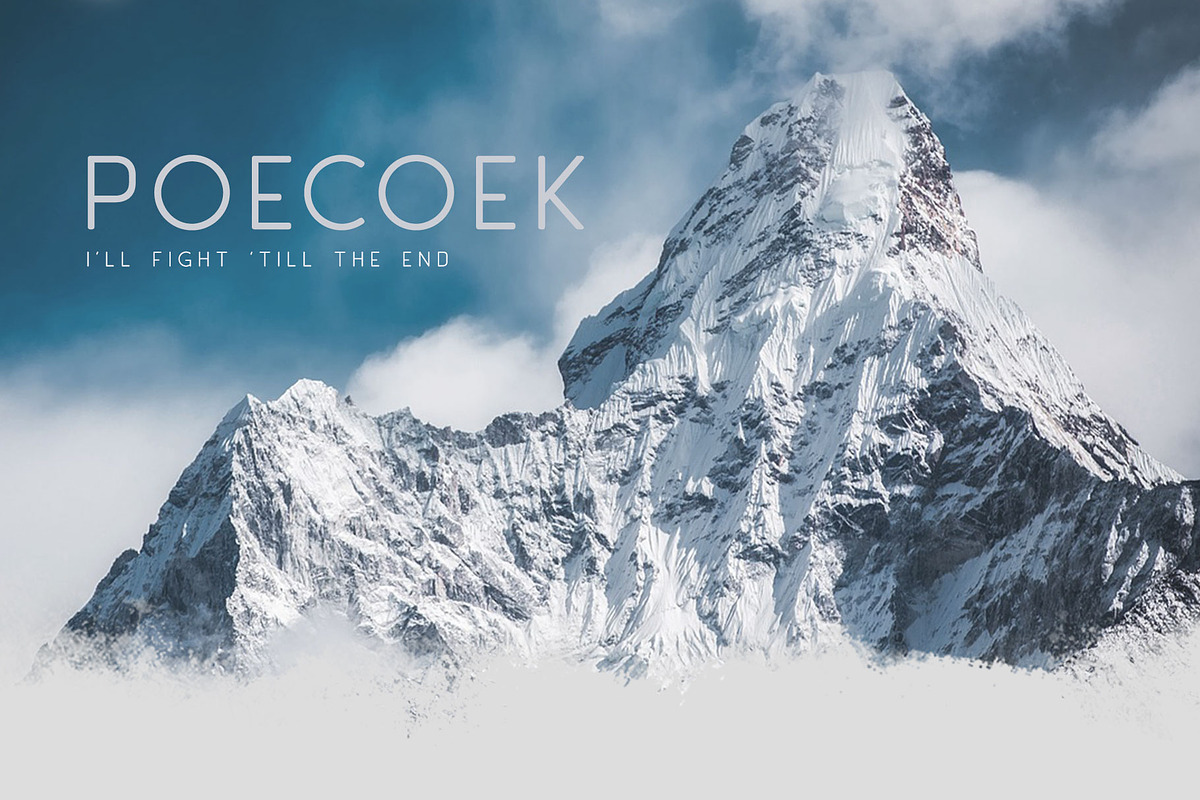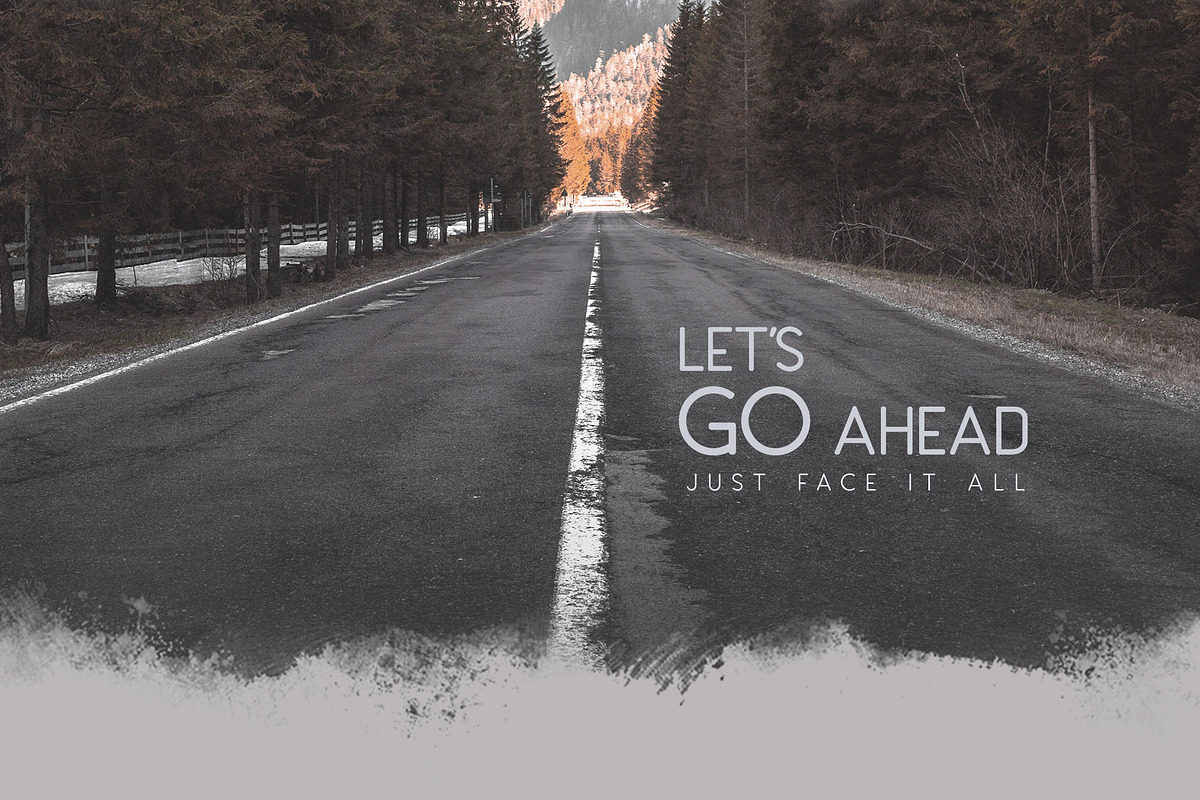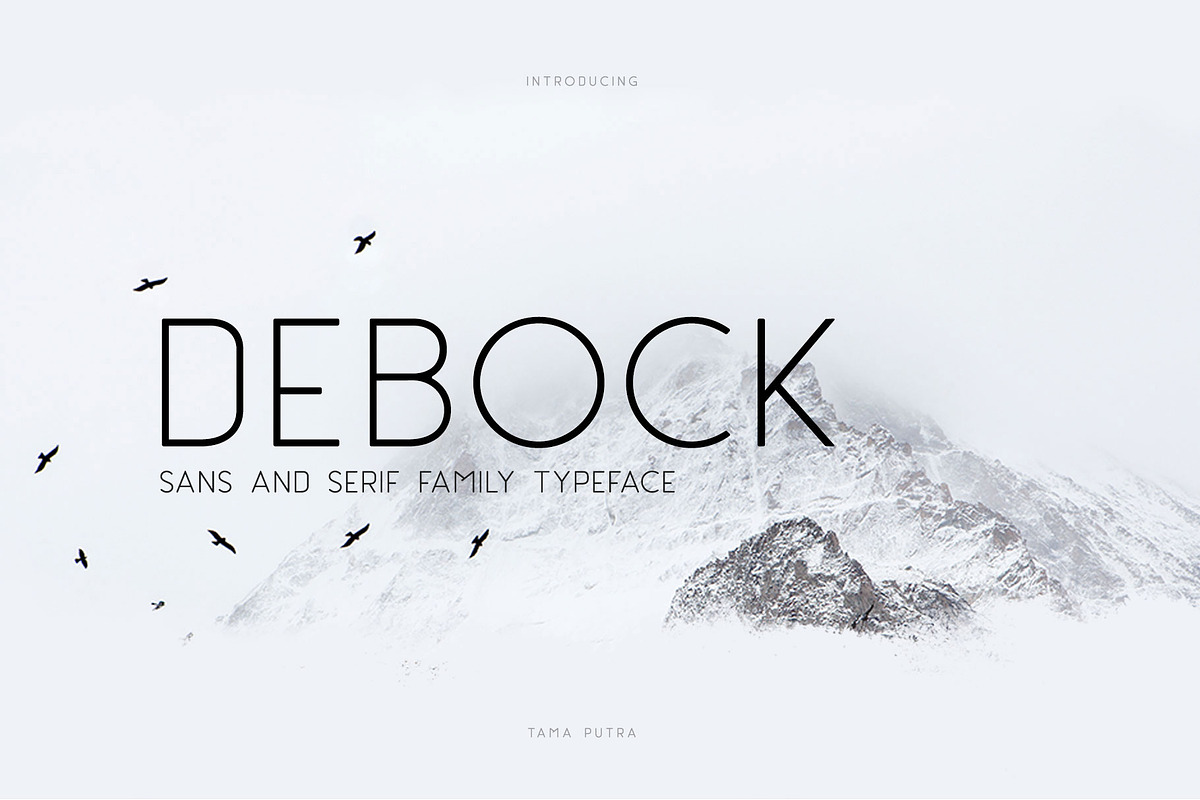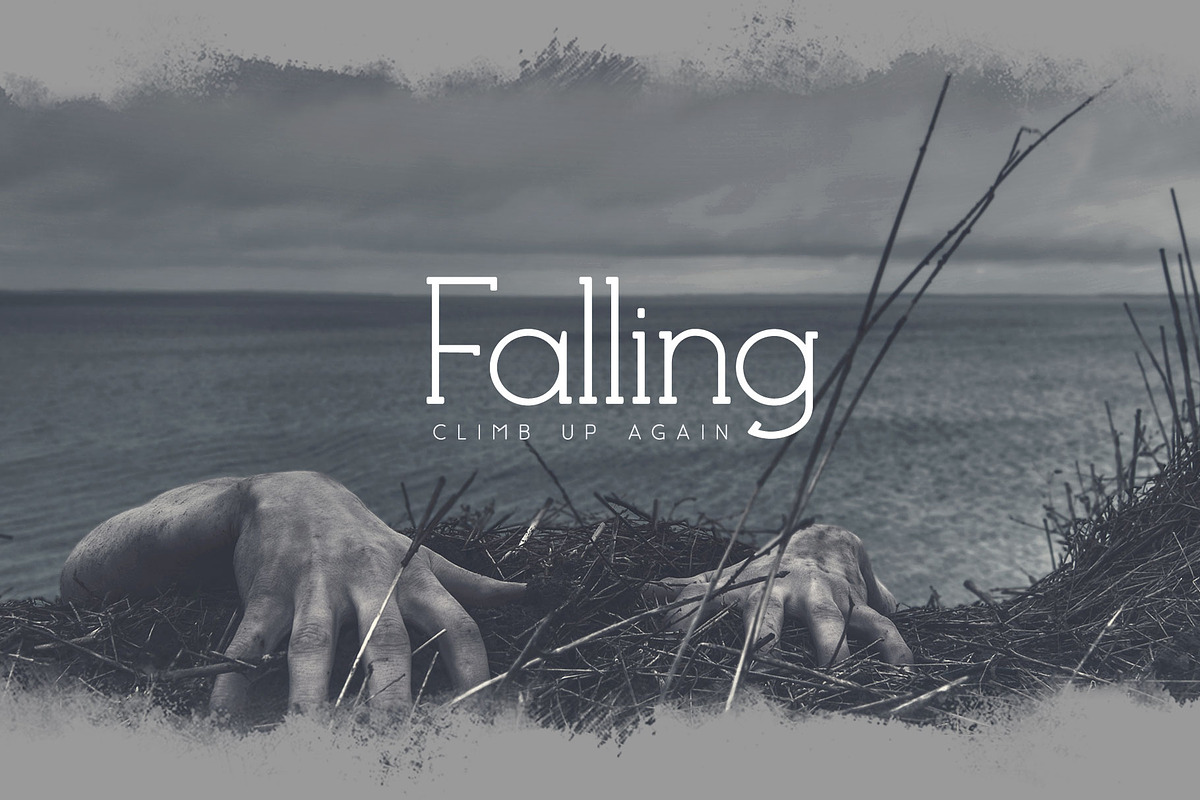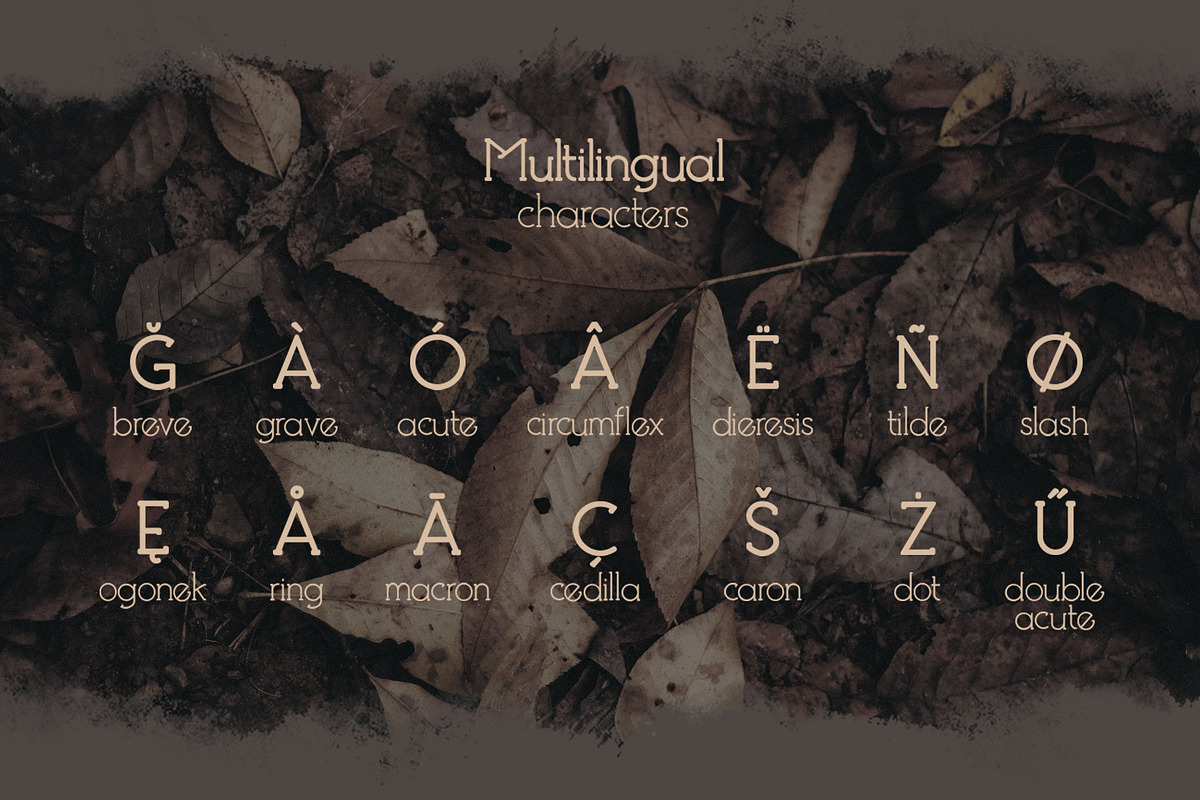
Debock Family Typeface
Debock is a slab serif and sans serif family typeface. It includes multi-lingual and currency support, numerals, and punctuation.
- Character Set A-Z (Uppercase & Lowercase)
Debock typeface is suitable font for creating beautiful things and many creative work.